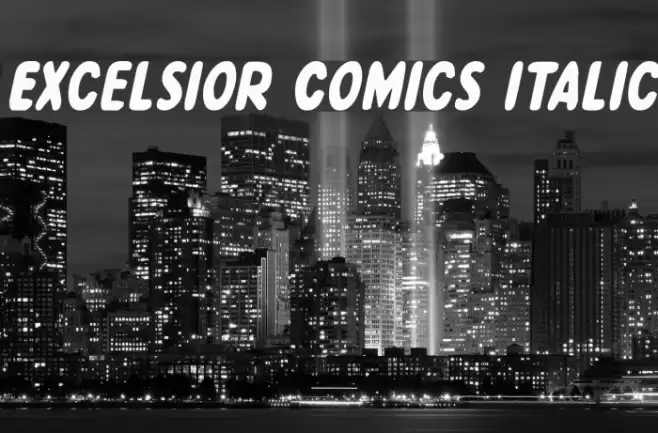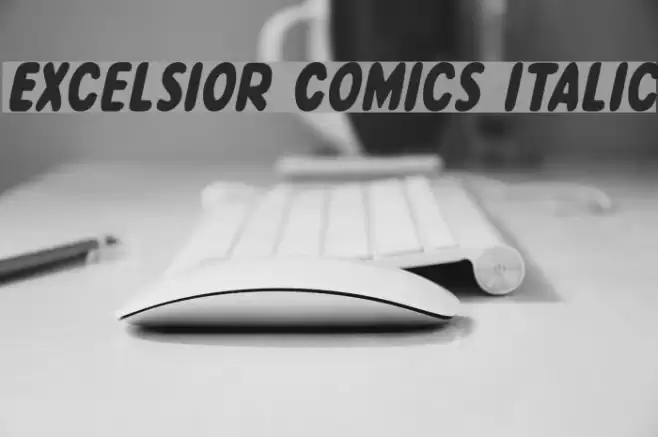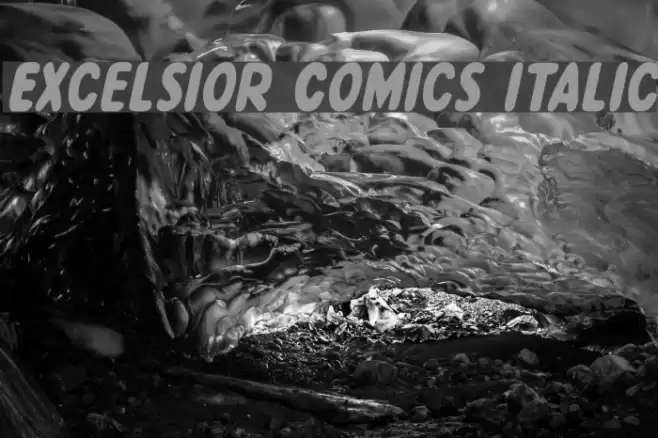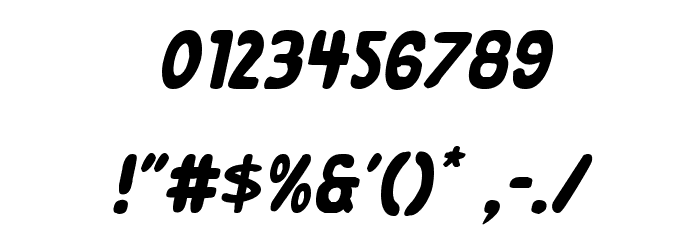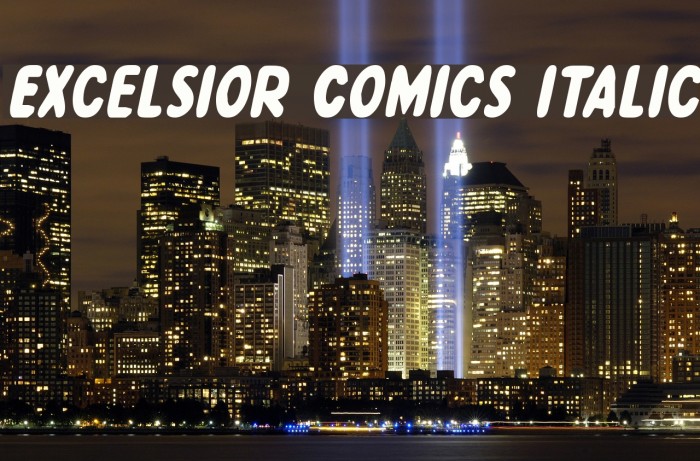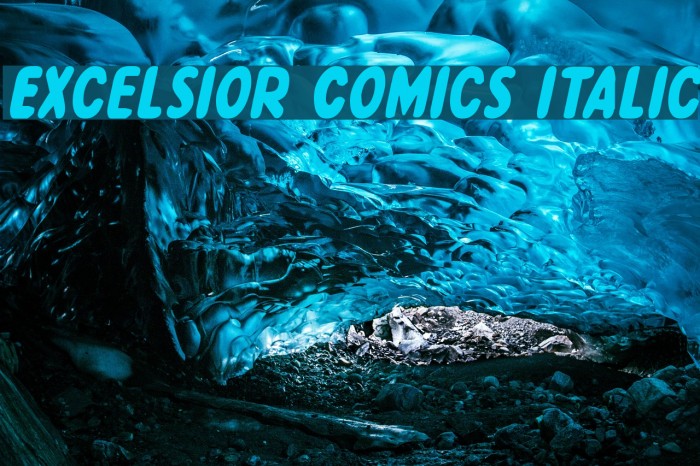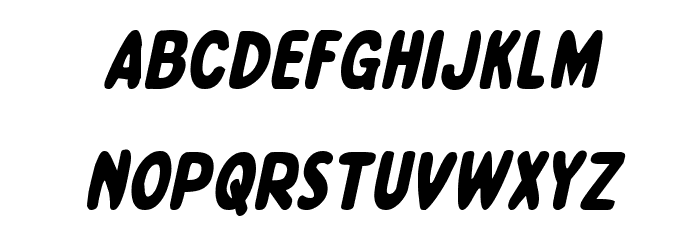
Excelsior Comics Italic Font
Excelsior Comics Italic Description
This font features a playful and bold style with a slight italic slant, giving it a dynamic and energetic appearance. The characters are rounded and thick, contributing to a friendly and approachable look. The uppercase and lowercase letters maintain a consistent style, with smooth curves and a uniform weight throughout. The numbers and special characters are designed to match the overall aesthetic, ensuring cohesion across all elements. This font is well-suited for projects that require a fun and informal tone, such as comic books, children's books, or playful branding.
A bold, playful, and slightly italic font with rounded characters from Comic fonts.
- Proposed Projects: Comic books, children's books, playful branding, informal posters.
- Overall Style: Playful